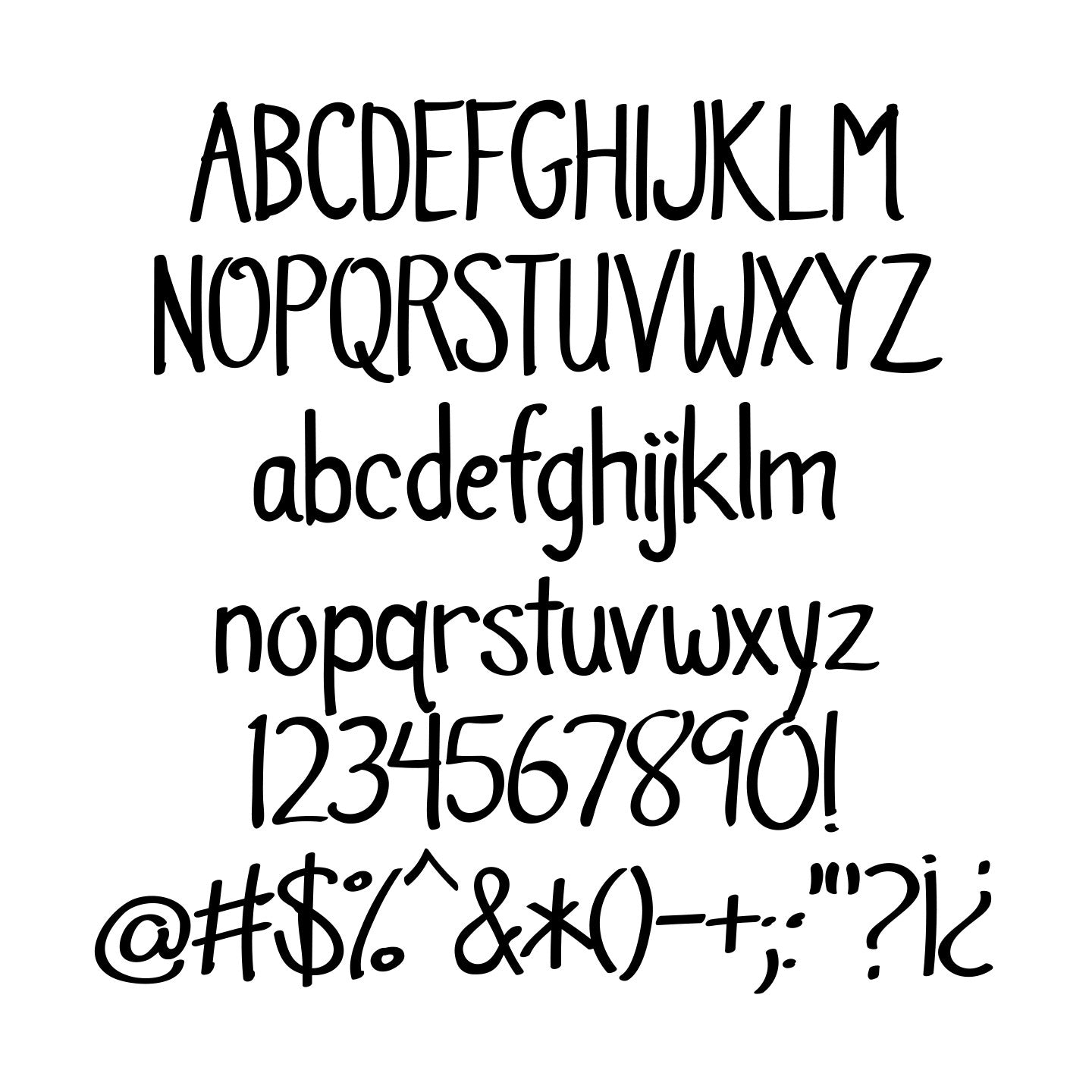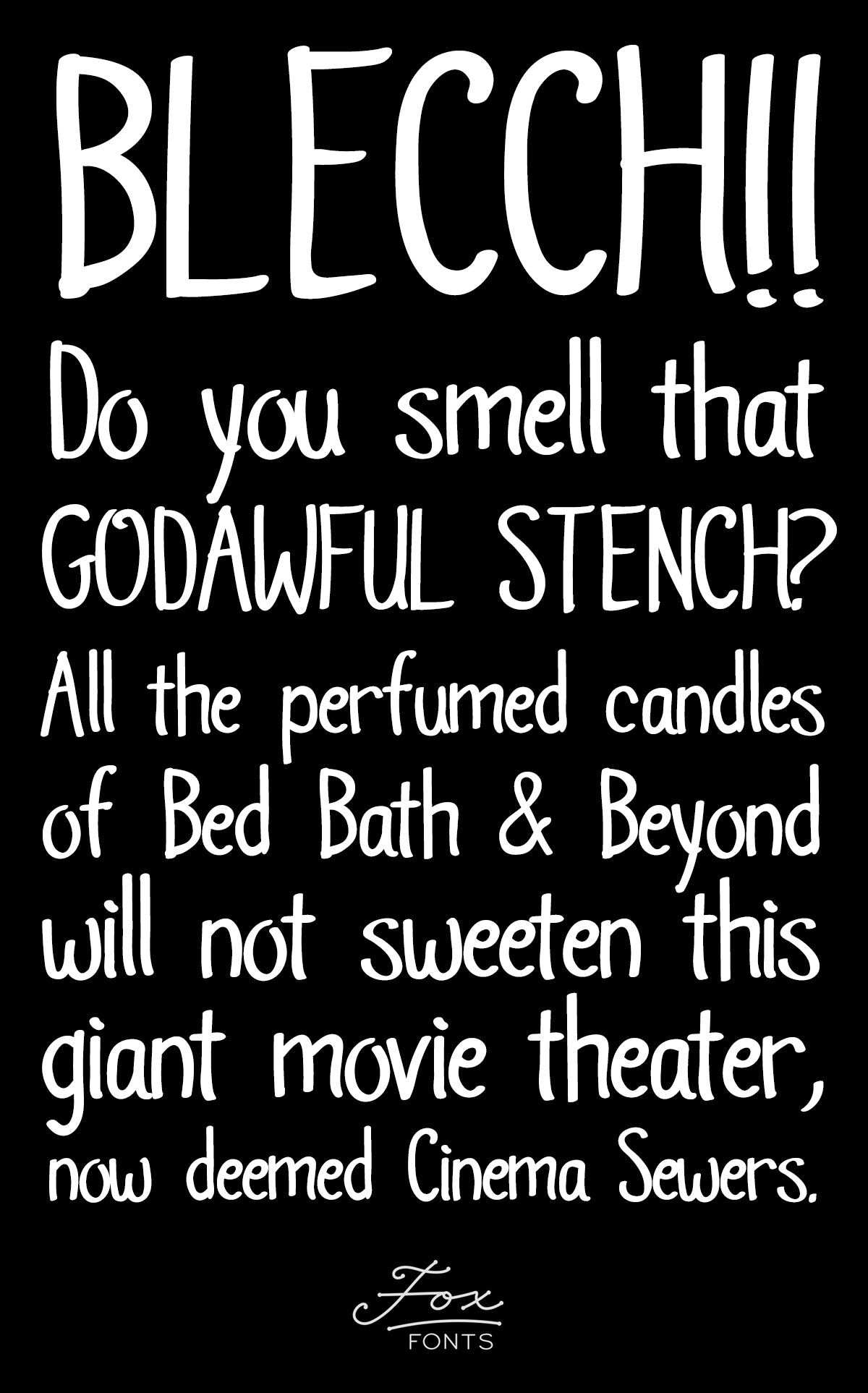
Abbazzo Comic
When I was a kid, my favorite comics were short on blab and long on the concept of "A picture's worth a thousand words." The WORST? Tons of copy and political messages... we didn't need lessons from funnies, just some cool doodles and a laugh. Eventually, I learned to appreciate the skill of comic-strip letterers who squeeze in lengthy text but keep it neat and legible.
Unlike that other "Comic" font, this believable handwriting typeface reads well at small sizes and in big blocks without being hokey.